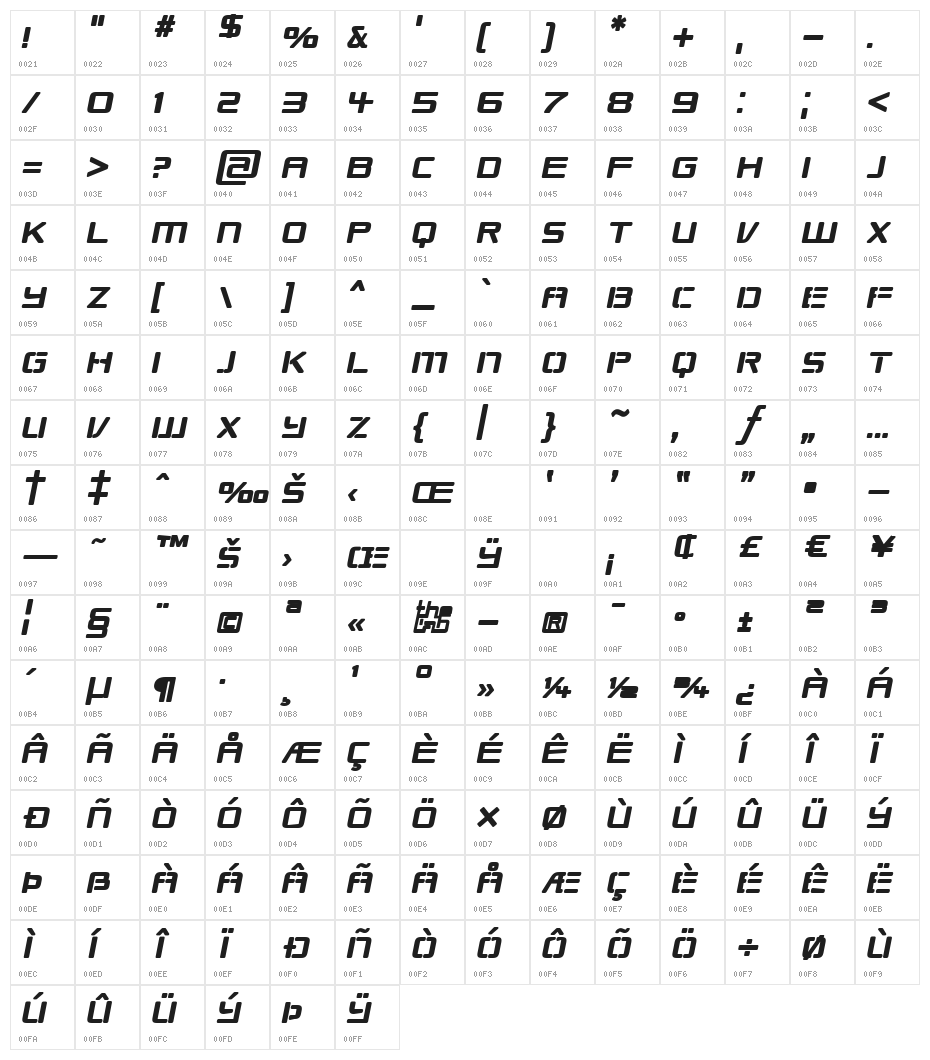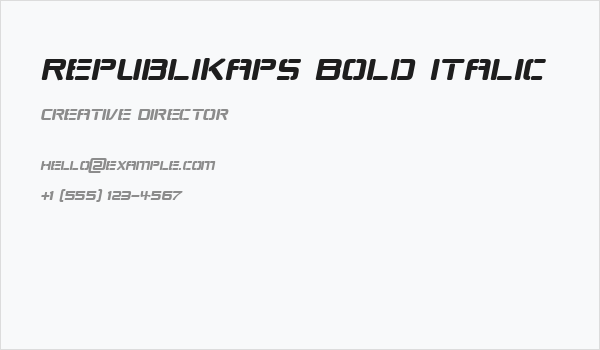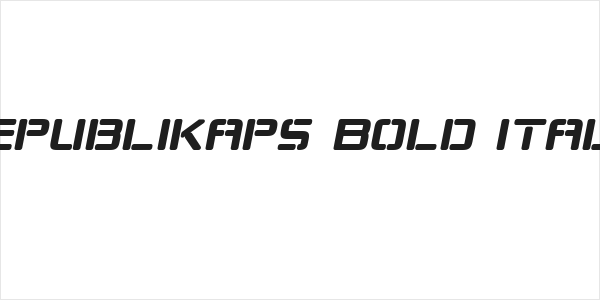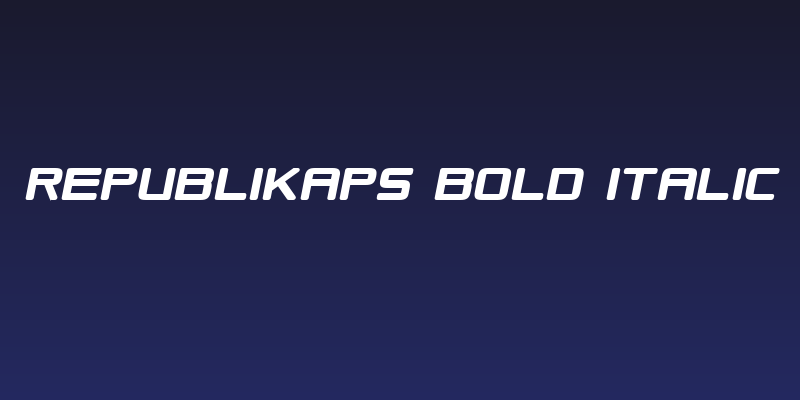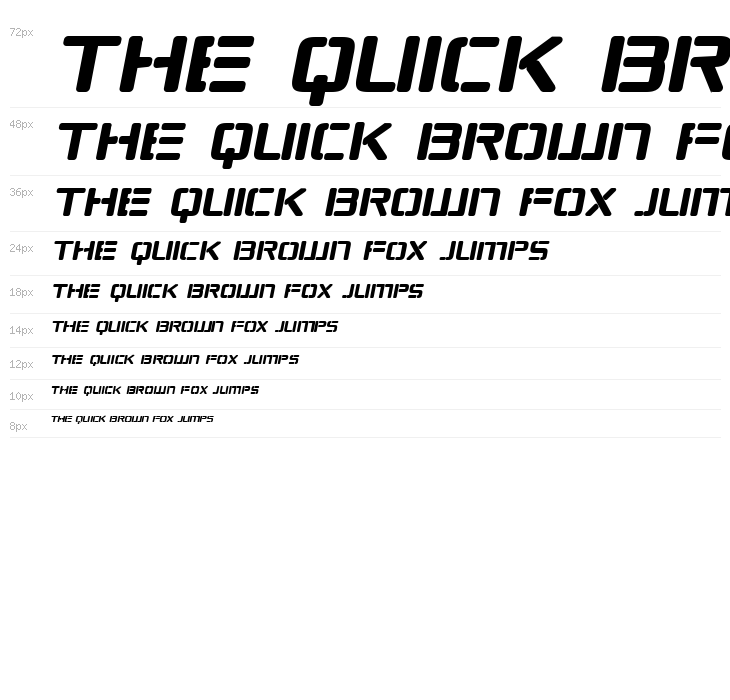
Republikaps Bold Italic Font
Republikaps Bold Italic Description
This font exhibits a bold and italicized style, characterized by its strong geometric shapes and slightly condensed form. The letters are designed with a modern aesthetic, featuring rounded edges and a consistent stroke width that gives it a sleek and streamlined appearance. The italic slant adds a dynamic and forward-moving feel, making it suitable for contemporary design projects. The numerals and special characters maintain the same bold and italicized characteristics, ensuring uniformity across all glyphs.
| Use Case | Logos, Headlines, Branding |
| Proposed Projects | Ideal for branding, sports team logos, tech-related designs, and dynamic advertising materials. |